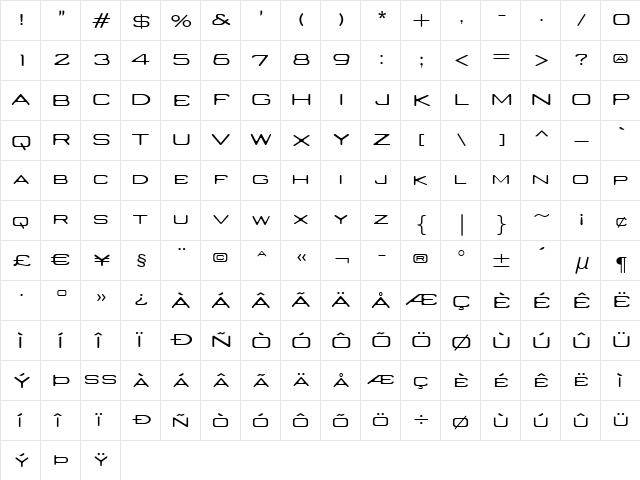
Nedian Light
Design Context for Nedian Typeface
Nedian takes a measured approach to typography — its balanced proportions and neutral character make it a reliable workhorse for both digital and print work. The delicate stroke weight brings airiness and refinement to layouts.